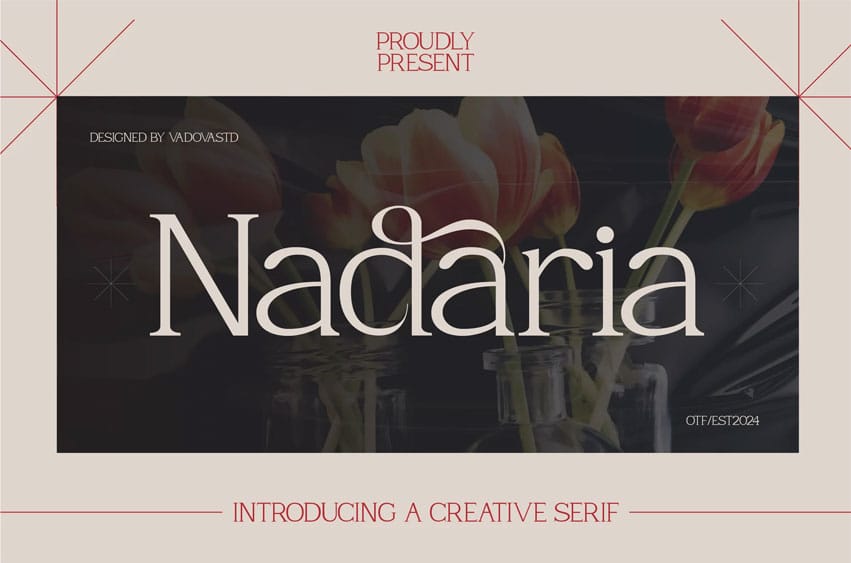
Nadaria Font is a refined serif font inspired by nature’s elegance and floral beauty. With its graceful letterforms and delicate botanical accents, this typeface is ideal for creative branding, packaging, wedding stationery, and graphic design with a nature-inspired touch. Nadaria adds poetic sophistication and organic warmth to every project, making it a perfect fit for designers seeking harmony between classic typography and artistic natural elements.
Suitable For: Floral branding, nature packaging, elegant invites, botanical labels, wedding design, stationery sets, creative posters, editorial spreads, lifestyle graphics, nature books, seasonal cards, wellness branding, organic products, font showcases, branding kits, eco-themed visuals, botanical prints, artistic merch, soft displays, handmade goods